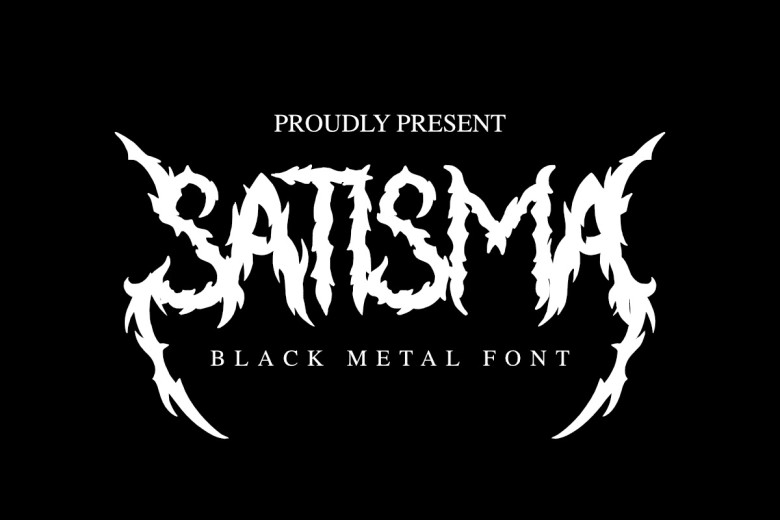
Satisma Font
Satisma Black metal font. Includes uppercase, numbers and lowercase characters to provide you with a complete gore/metal/brutal design experience. Ideal for creating band logos or merchandise merchandising; works across most applications/software programs.
Satisma Horror Font